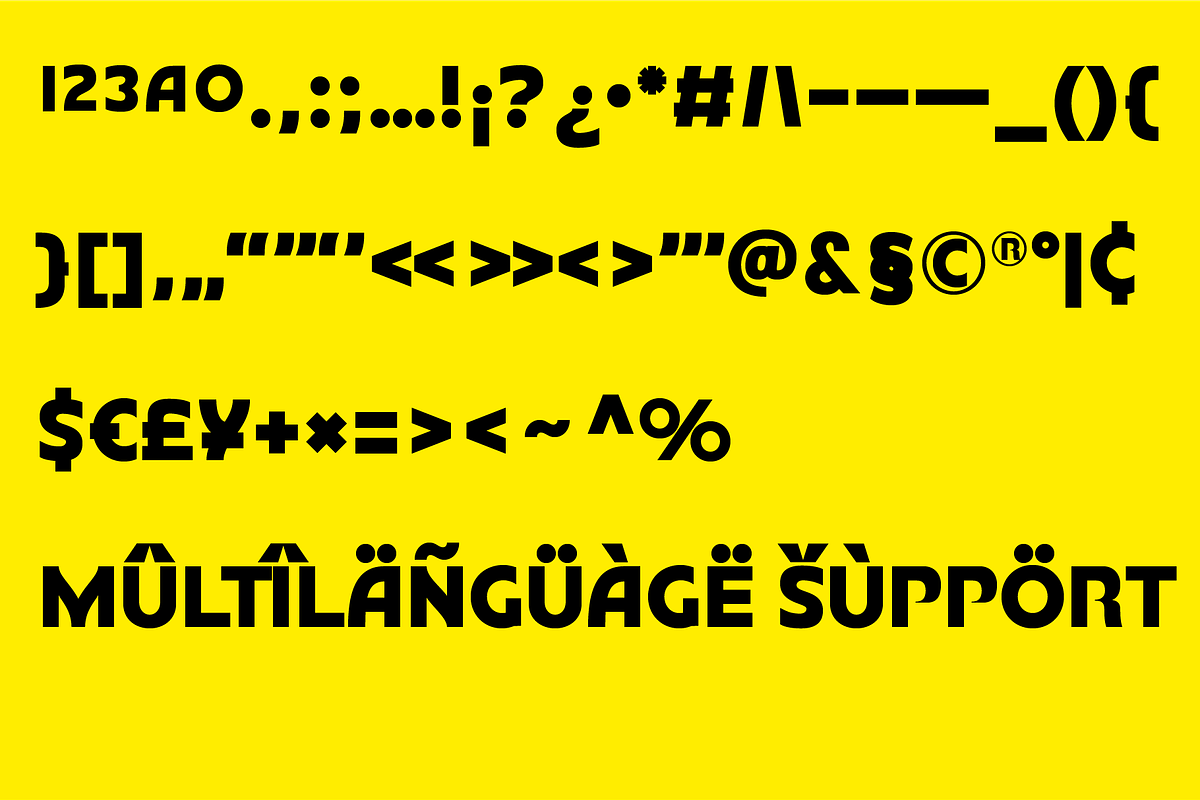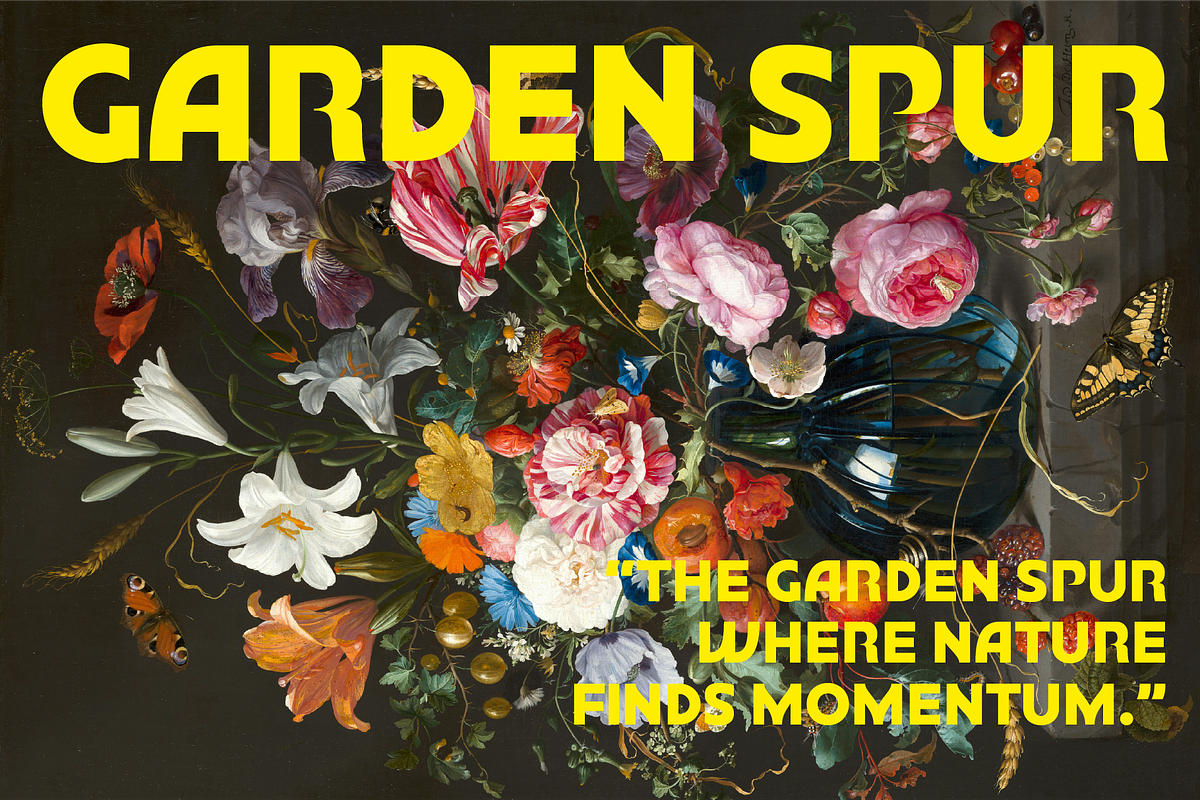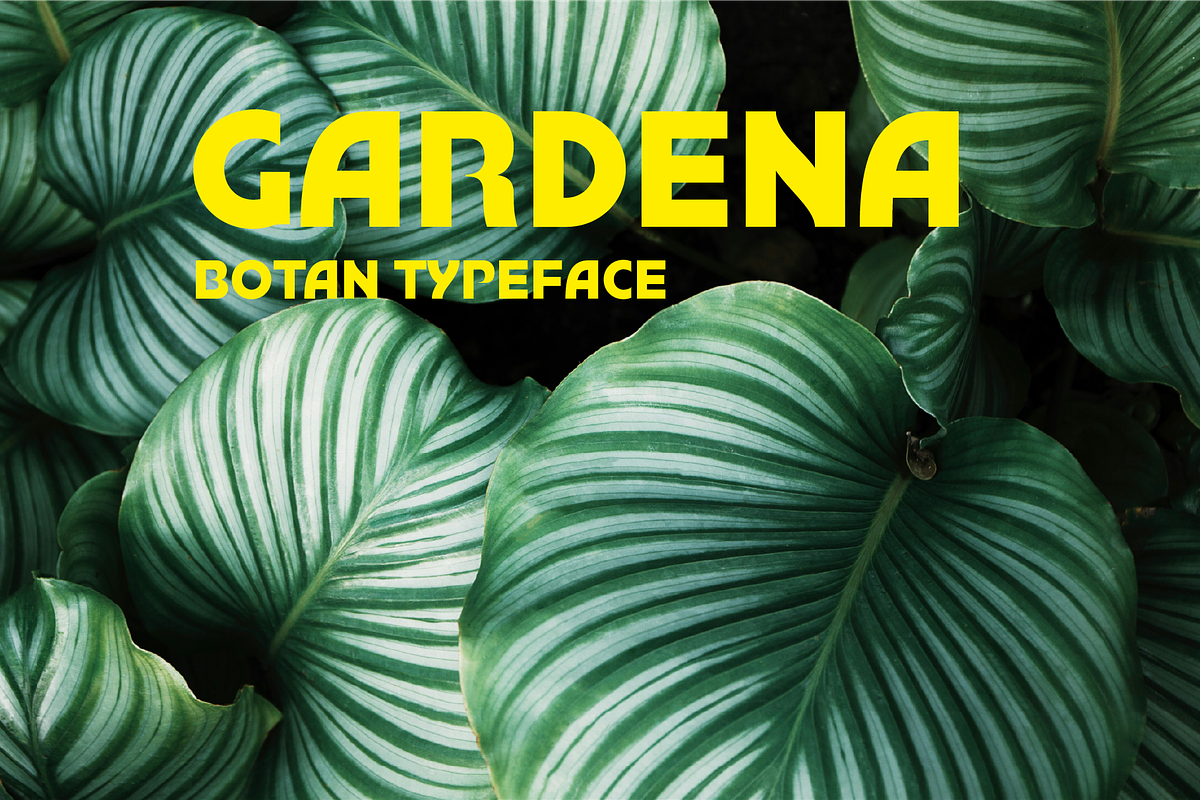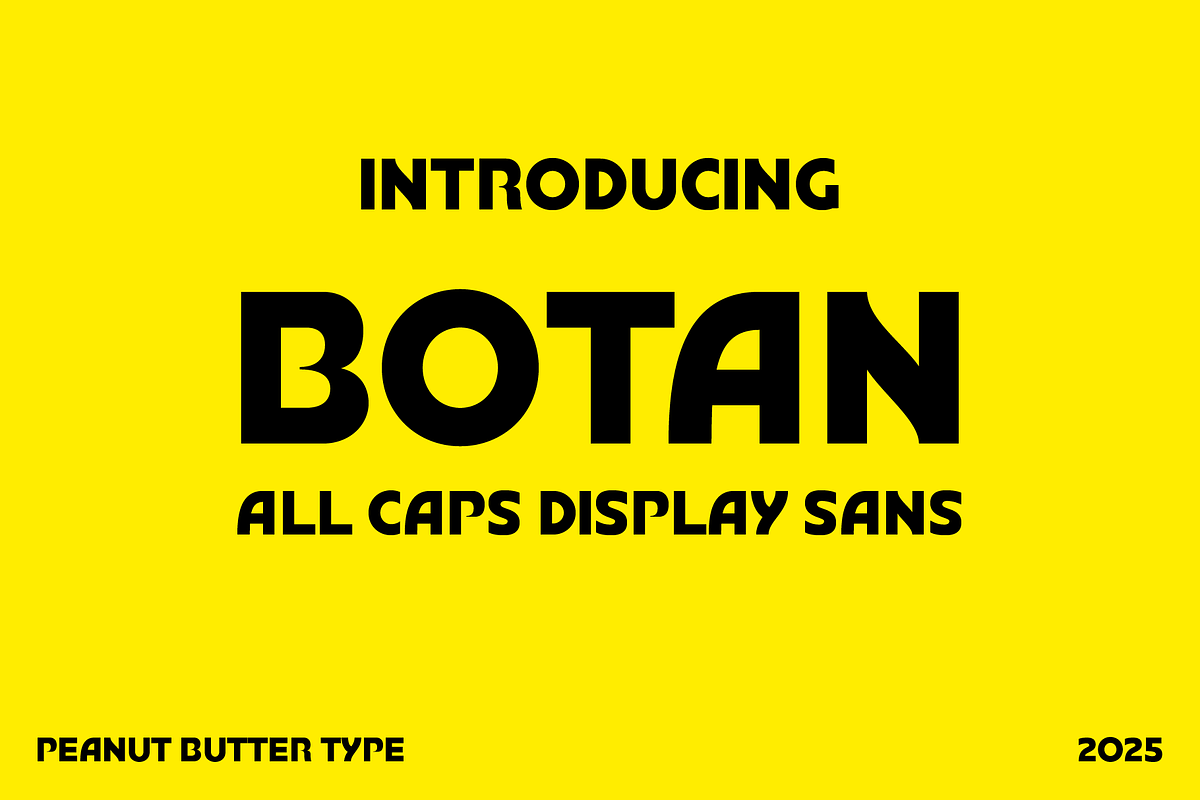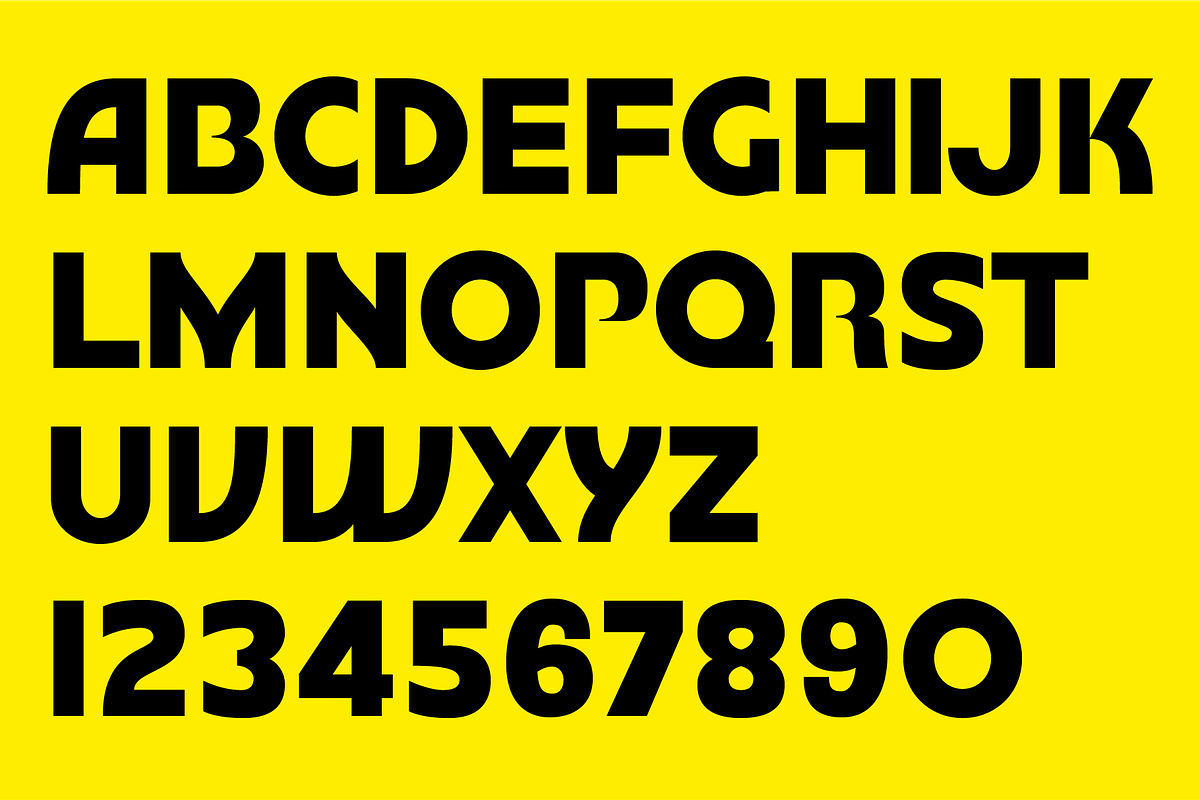
Botan All Caps Display Sans
Botan is an all-caps display sans serif typeface designed to make a strong visual impact through its clean geometry and confident letterforms. Because it features only uppercase characters, Botan immediately draws attention and conveys a sense of boldness and authority, making it ideal for logos, titles, posters, and branding materials. As a display font, it is meant to be used at larger sizes, where its sharp edges and balanced proportions can be fully appreciated. The sans serif style gives it a modern and minimalistic feel, ensuring it fits well in contemporary design contexts where clarity and simplicity are key. Overall, Botan’s precise construction and striking visual presence make it a powerful choice for designers seeking a typeface that communicates strength, sophistication, and modernity without unnecessary ornamentation. Files include: OTF, TTF, WOFF and WOFF2